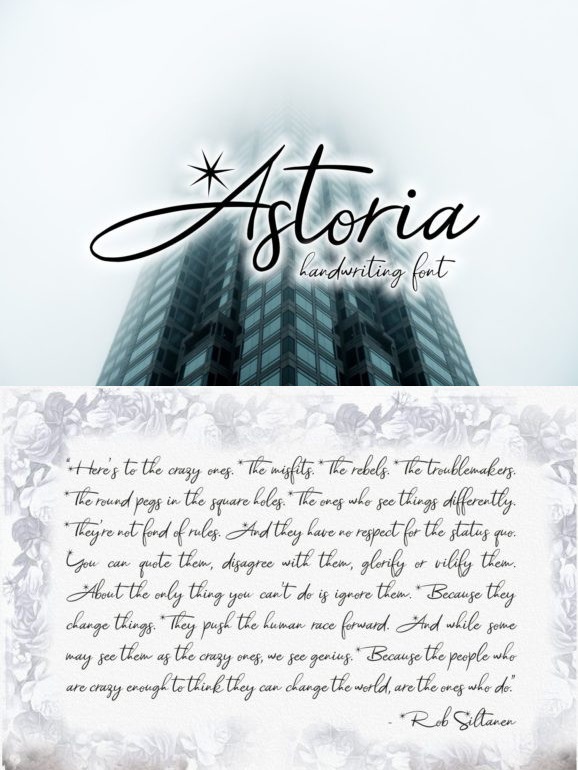
Astoria Font
Astoria Font is perfect for luxury hotel branding, upscale restaurant signage, premium hospitality marketing, elegant event stationery, sophisticated city branding, historic district signage, exclusive club communications, and refined urban lifestyle campaigns.
What makes Astoria Font exciting is its metropolitan elegance that captures the sophisticated charm and cosmopolitan refinement of world-class urban destinations and luxury hospitality. The font features refined letterforms with architectural proportions and urbane character that evoke grand hotels, city skylines, and the timeless sophistication of metropolitan culture. Its distinctive cosmopolitan styling and luxury appeal communicate prestige, cultural sophistication, and urban refinement, making every message feel touched by the glamour of great cities and elevated by the elegance of metropolitan excellence.
The Astoria Font family includes regular weight with uppercase and lowercase letters, numerals, punctuation marks, and comprehensive special characters. Premium versions often feature stylistic alternates and luxury elements that enhance the sophisticated, metropolitan aesthetic perfect for hospitality and urban branding applications.
This distinguished metropolitan typeface brings instant sophistication and urban credibility to any luxury-focused project. Astoria Font Free Download offers exceptional value for businesses in luxury hospitality and urban development seeking to communicate metropolitan excellence, cultural sophistication, and premium quality to discerning urban audiences.
The cosmopolitan character of Astoria Font makes it particularly valuable for luxury hotels, upscale restaurants, and premium city services. Its excellent readability ensures luxury messaging and urban communications remain clear while maintaining the distinctive metropolitan aesthetic that appeals to sophisticated travelers and urban professionals seeking refined experiences.
Luxury hospitality marketers appreciate how Astoria Font effortlessly conveys urban sophistication and metropolitan prestige. The font's elegant proportions and cosmopolitan details create prestigious brand materials that establish connections with audiences who value cultural refinement, urban luxury, and the sophisticated lifestyle of world-class metropolitan destinations.
The versatile sophistication of this typeface extends to cultural institutions, luxury real estate, and premium urban services where metropolitan authenticity enhances brand prestige. Astoria Font Free Download provides creative professionals with an essential tool for developing memorable, sophistication-driven designs that resonate with audiences who embrace urban elegance, metropolitan culture, and the refined luxury of cosmopolitan city living in today's globally-connected world.